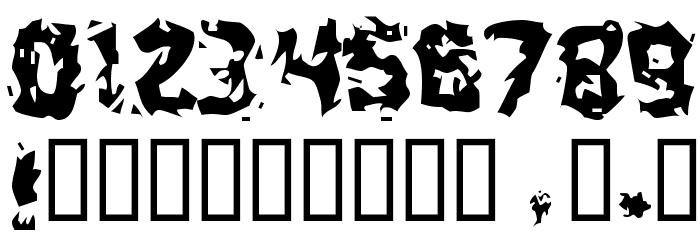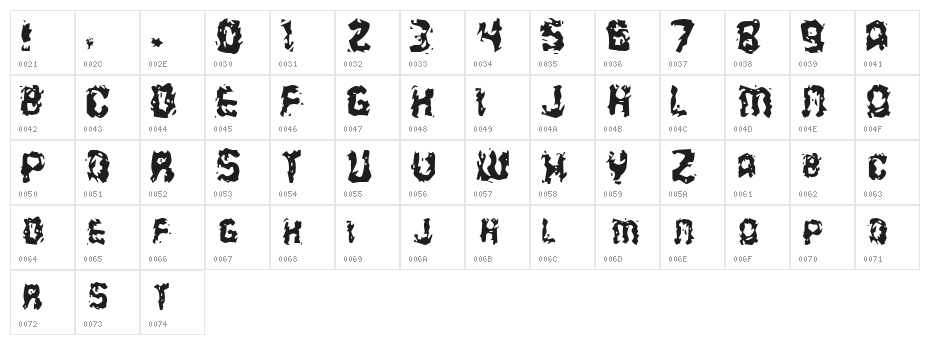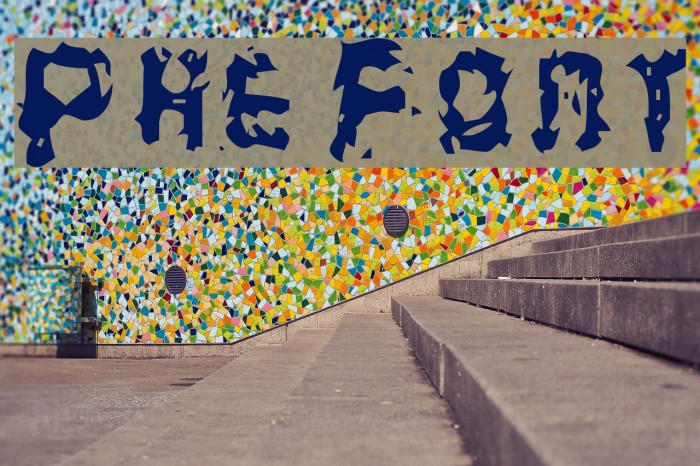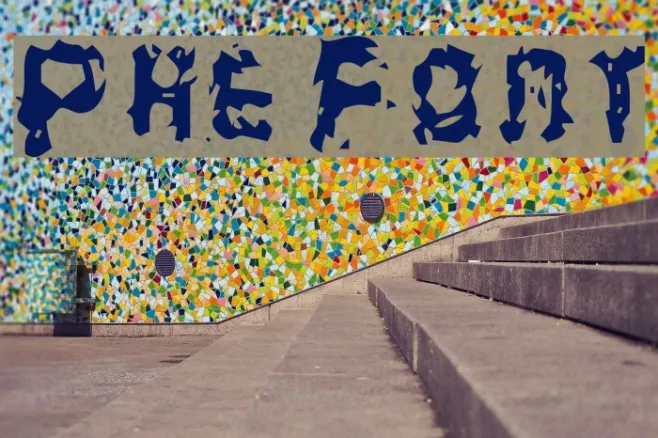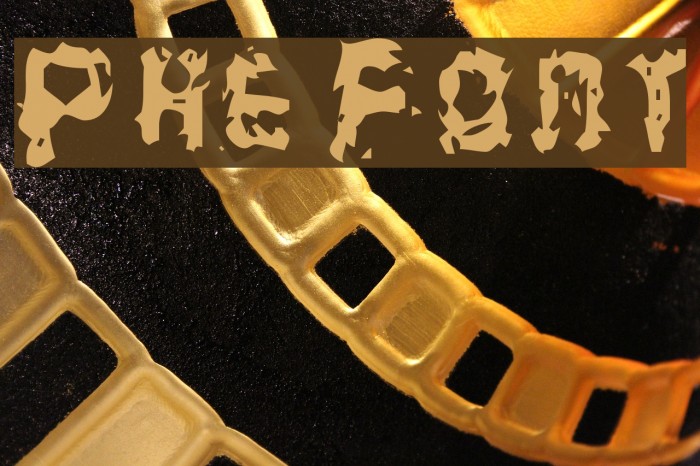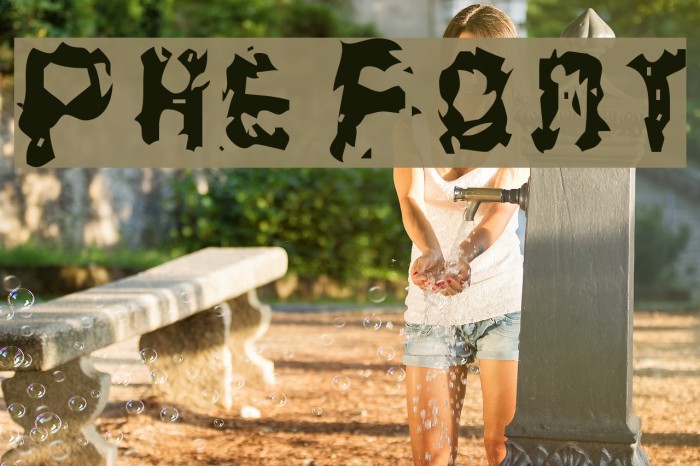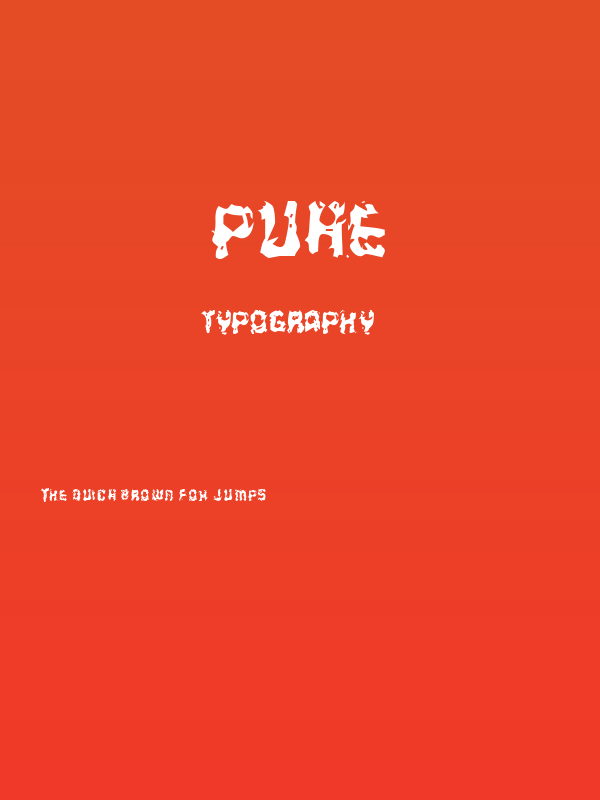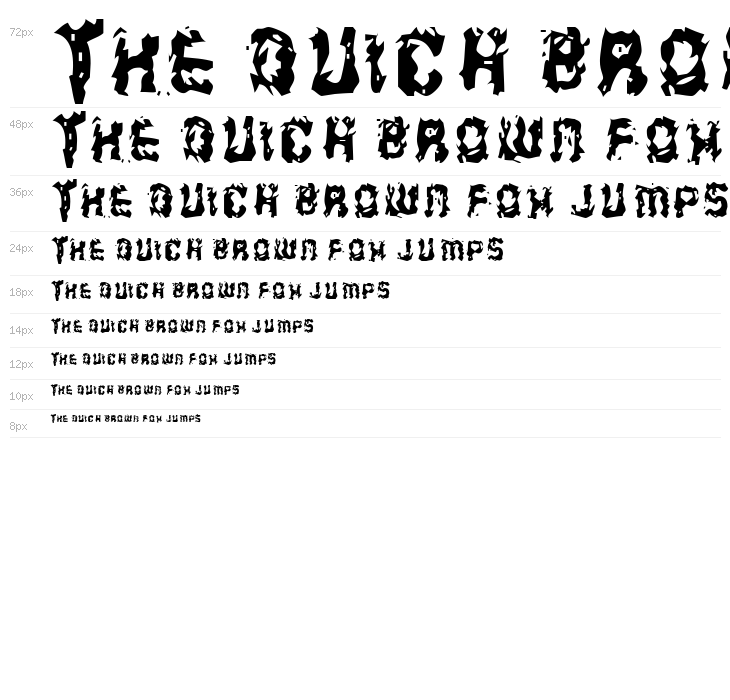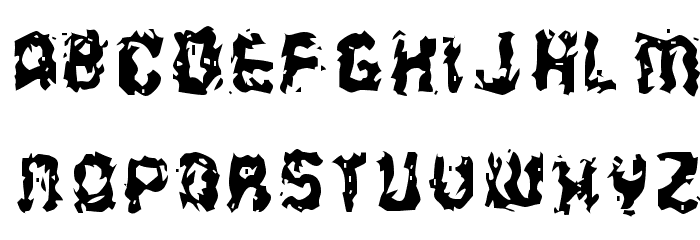
Puke Font
Puke Description
This font exhibits a highly distressed and chaotic appearance, with each character appearing as if it has been torn or eroded. The irregular edges and fragmented shapes give it a unique, grunge-like aesthetic. Despite its roughness, the characters remain distinguishable, maintaining a balance between legibility and artistic expression. The font's bold and heavy strokes contribute to its dramatic impact, making it suitable for projects that require a strong visual statement. The overall style is reminiscent of urban decay or abstract art, offering a distinctive look that stands out.
| Overall Style | Grunge, Urban, Abstract |
| Use Case | Headlines, Logos, Artistic projects |
| Proposed Projects | Ideal for album covers, poster designs, streetwear branding, or any creative project seeking a bold, edgy look. |